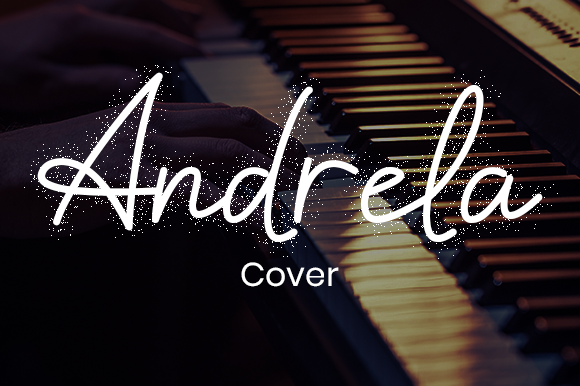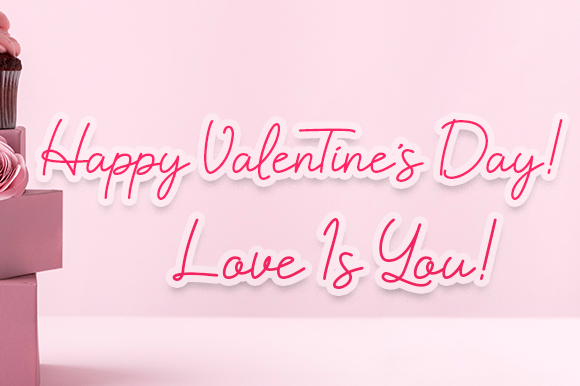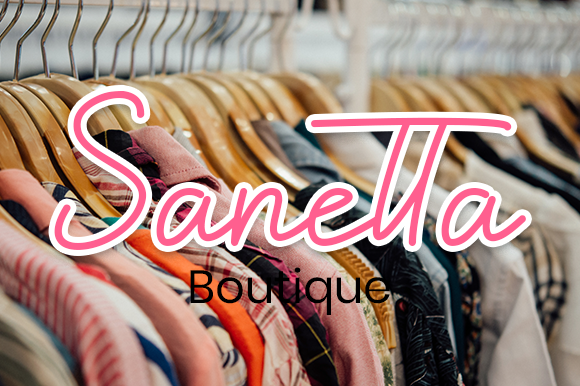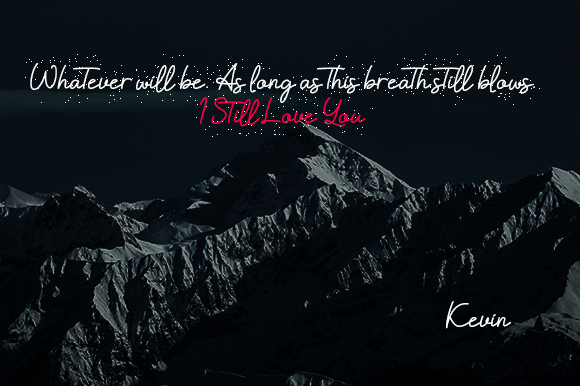
About Hallysoon Font
Hallysoon is monoline script font with natural movement and an elegant signature style.
Fall in love with its incredibly stylish look and use it to create spectacular designs!